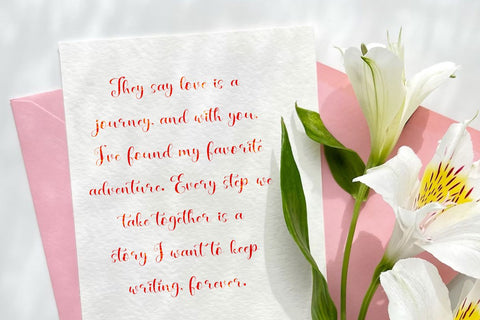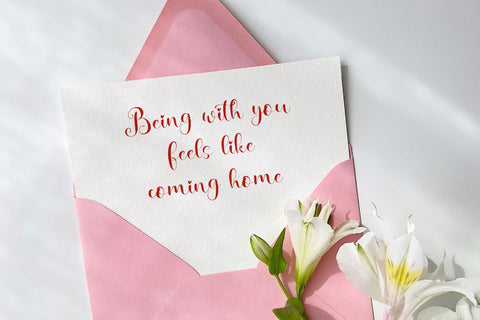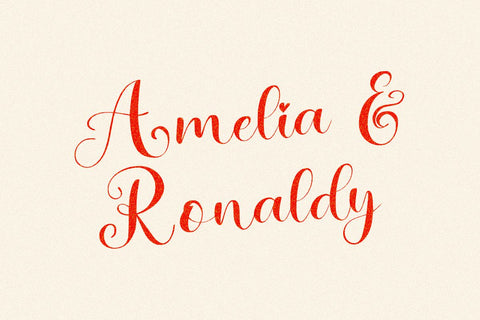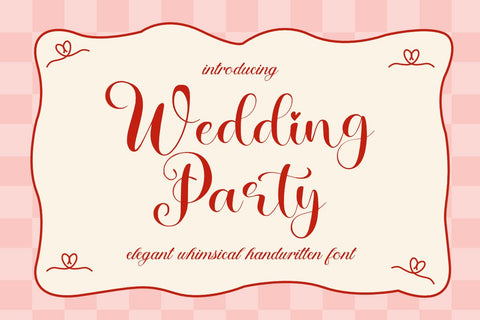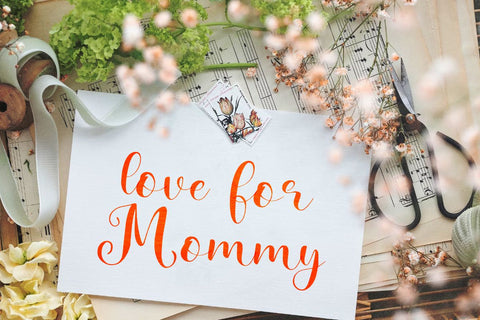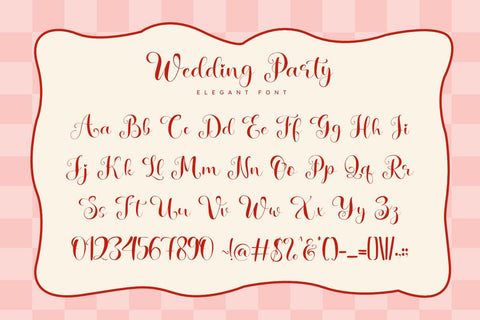
Wedding Party - Elegant Whimsical Handwritten Script Font
Introducing Wedding Party, a charming and elegant handwritten script font designed to add a personal, whimsical touch to your creative projects. Its flowing, authentic style makes it perfect for wedding invitations & stationery, unique branding & logos, heartfelt greeting cards & quotes, and stunning social media or event designs.